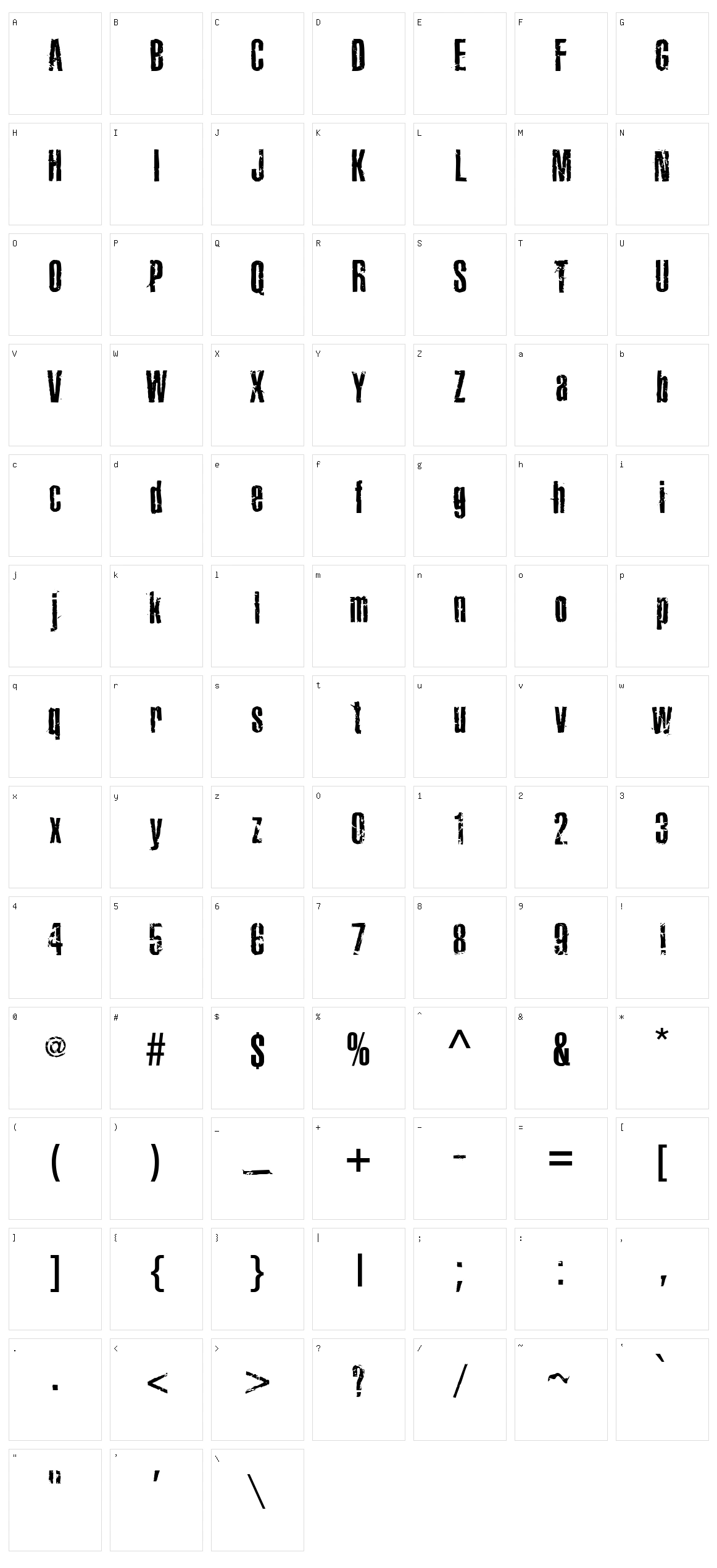
The free font Joels Ragged Font is carefully designed by Joel Merritt, showcasing a thoughtful balance of creativity and usability and falls under the Eroded font style. When you download the ZIP file, it contains only 93.85 KB of font files, making it lightweight and quick to download. Please review the license details below to understand permitted usage and distribution rights. If license information is not available, we recommend using this font for personal projects only or contacting the author directly for commercial usage permissions.